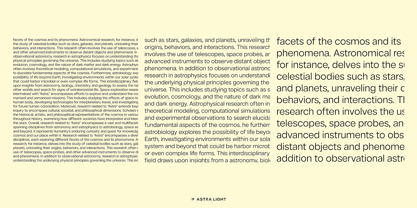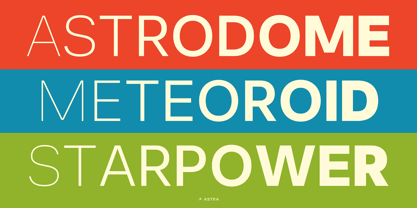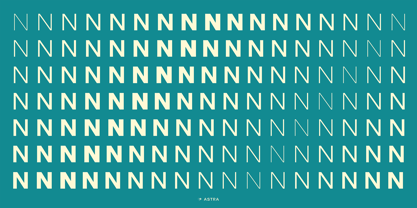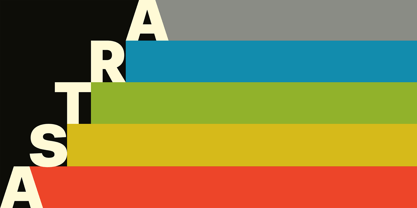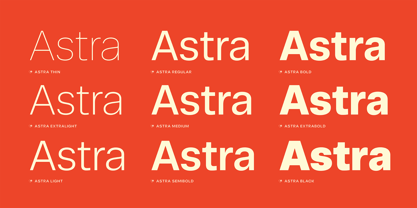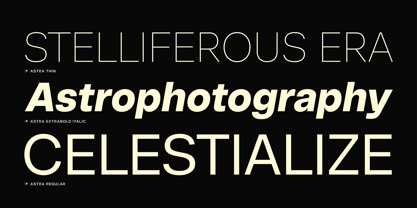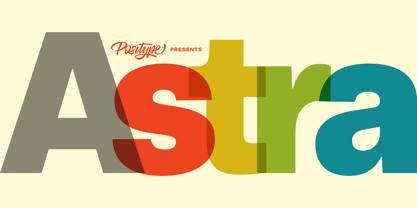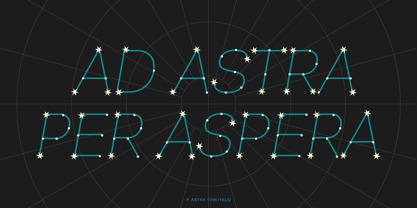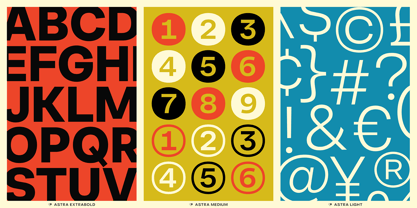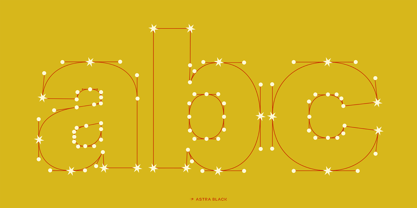
Astra
by Positype
Astra is a sophisticated geometric sans serif typeface, offering 9 weights that range from delicate thin to robust bold. Its design beautifully merges geometric precision with subtle humanist details, creating a clean yet inviting appearance. This balance ensures Astra is versatile, making it ideal for both branding and editorial projects. The typeface exudes modernity and elegance, appealing to designers seeking a fresh and refined font to elevate their work.
Designers: Neil Summerour
Foundry: Positype